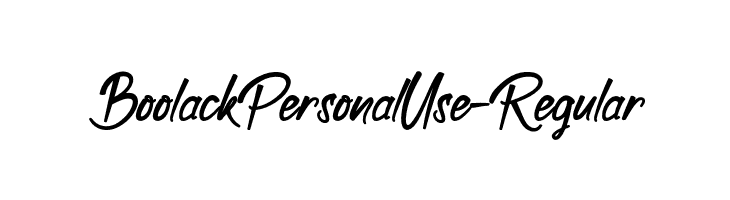
A dynamic, handwritten-style font with fluid, elongated characters.
A dynamic, cursive script font with a flowing, handwritten style.
A dynamic, cursive script font with elegant, flowing strokes.
A dynamic and flowing script font with elegant, handwritten strokes.